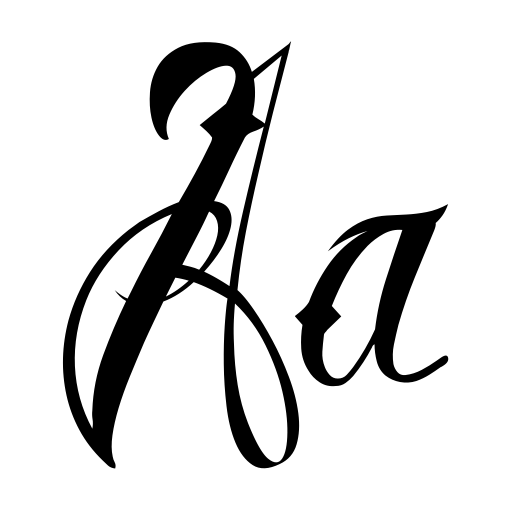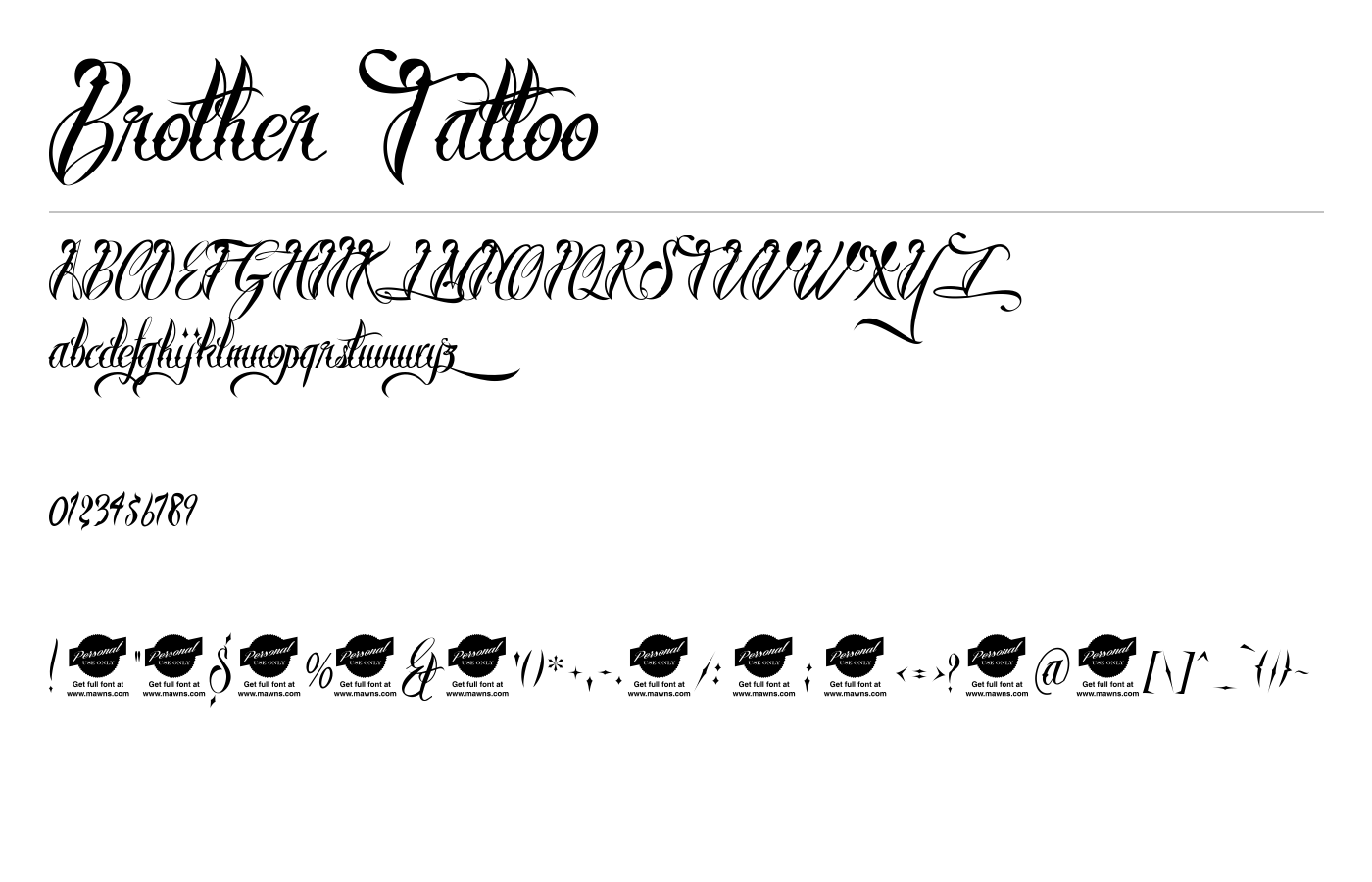
Brother Tattoo is an elegant and intricate script font that features sharp, flowing strokes with high contrast between thick and thin lines, evoking a sophisticated yet edgy tattoo-inspired style. Its elaborate swashes and decorative flourishes give it a unique personality, making it ideal for artistic branding, logos, and designs that require a bold and expressive statement. This font works best in headlines or display uses where its ornamental flair can truly shine.
Brother Tattoo Font
About Brother Tattoo Font